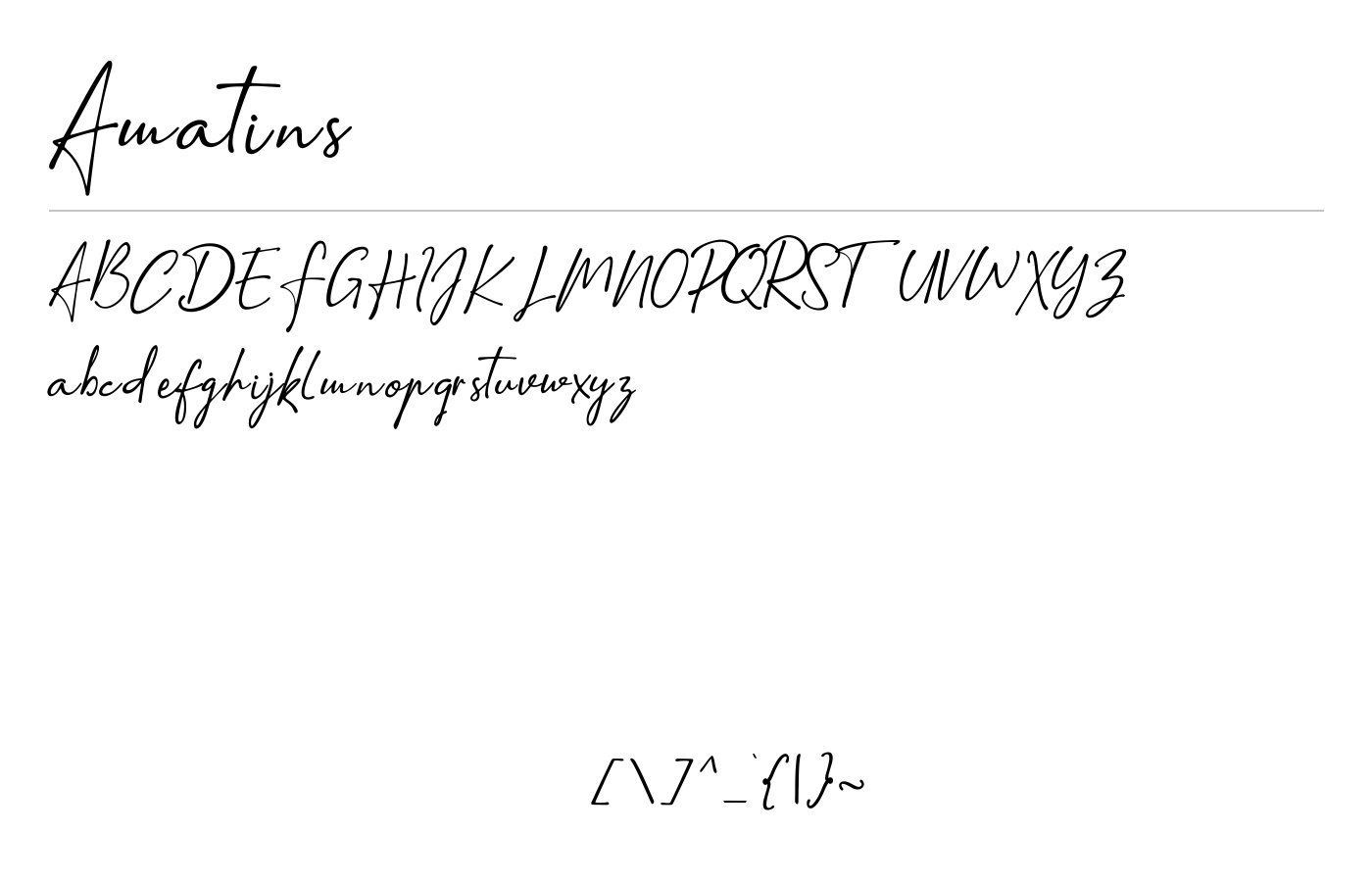
Amatins is a stylish, handwritten script font characterized by its slender, flowing strokes and a natural, casual elegance. Its light weight and tall x-height create an airy, approachable feel, making it perfect for branding, invitations, and any design that seeks a personal yet refined touch. This font works wonderfully in creative and feminine contexts where a modern, handcrafted look is desired.
Amatins Font